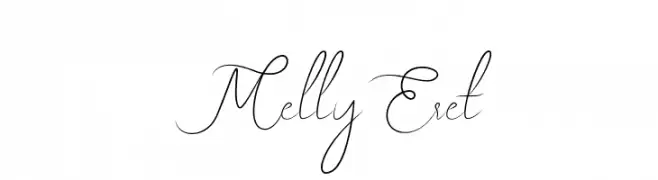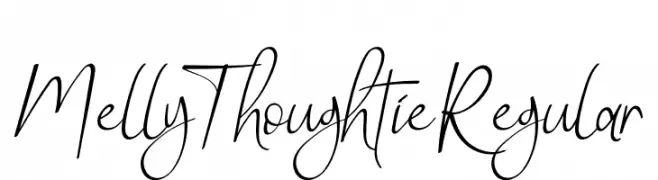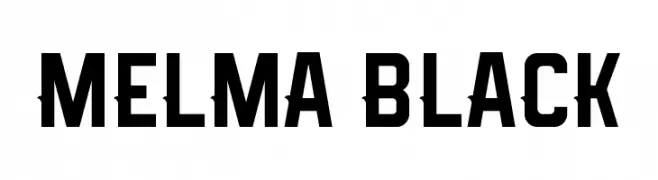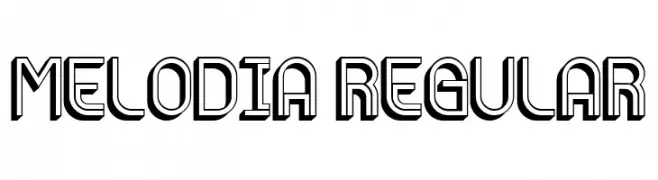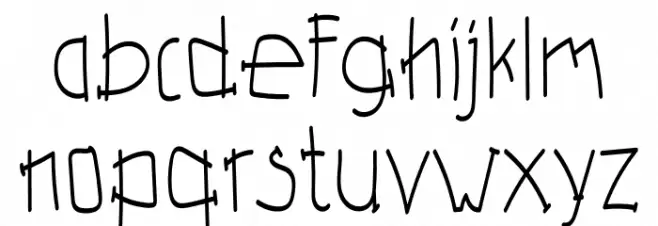
An elegant script font with flowing, interconnected letters and high contrast.
A graceful and elegant handwritten cursive font with flowing letterforms.
A flowing, handwritten script font with a casual elegance.
A modern, clean sans-serif font with balanced proportions and geometric influences.
A playful, hand-drawn font with a whimsical and casual style.
A flowing, cursive font with elegant loops and swashes, perfect for artistic projects.
A bold, decorative font with a three-dimensional effect and geometric structure.
A bold, playful font with rounded strokes and a lively baseline bounce.